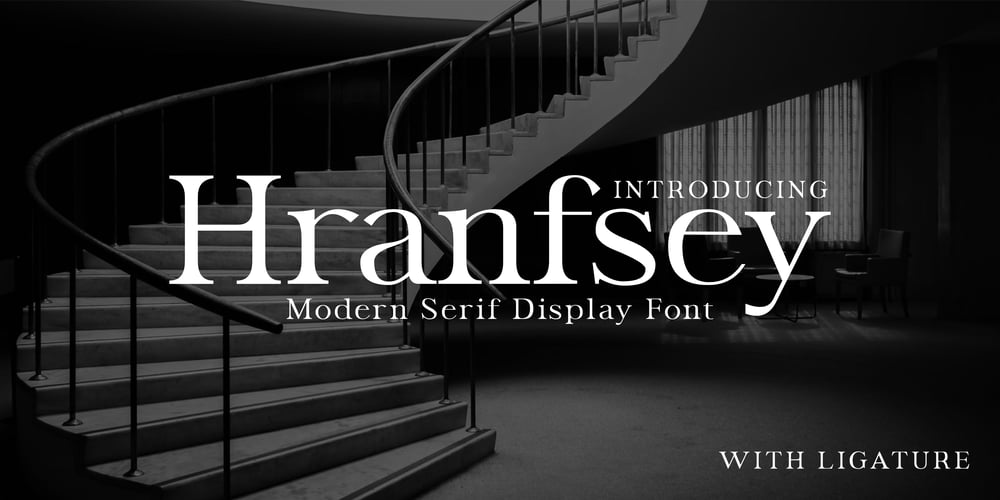
Hranfsey Font Family was designed by Zamjump and published by Zamjump. Hranfsey contains 1 styles and family package options. Introducing Hranfsey, a modern serif display font that exudes timeless elegance and strength. Its distinctive character makes it an ideal choice for a wide range of design projects. Whether you’re crafting eye-catching posters, creating unique artisanal products, developing a memorable logotype, enhancing brand identity, or designing sophisticated interior spaces, Hranfsey delivers unparalleled versatility and impact. Let this font elevate your work with its bold yet classic charm.